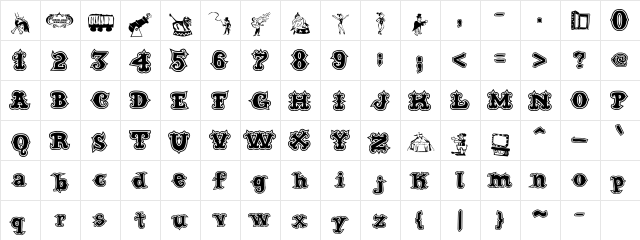
Cordel Circo Mambembe Outline Bold
Design Context for Cordel Circo Mambembe Outline Typeface
Cordel Circo Mambembe Outline brings ornamental detail and strong personality to headlines and identities, where visual impact matters more than quiet functionality. Its bold stroke weight gives it real presence on the page.
Font Pairing: Pair with a clean neutral sans-serif for body copy to let Cordel Circo Mambembe Outline's character lead without overwhelming the composition.
Pro Tip: Use Cordel Circo Mambembe Outline exclusively at display sizes — it was designed to be seen, not read at length. Let a neutral companion handle body copy.